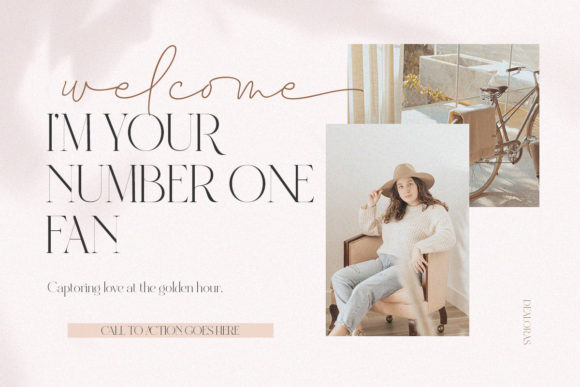
Dealoras Trio Font
db-ku.com - Script & Handwritten -- Dealoras Trio is a stylish and elegant trio font (display, serif, and script). This font is PUA encoded which means you can access all of the glyphs and swashes with ease!